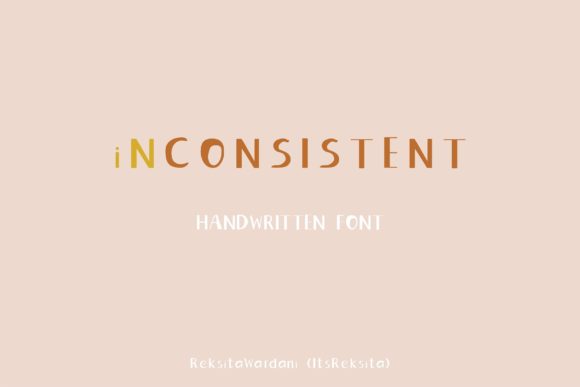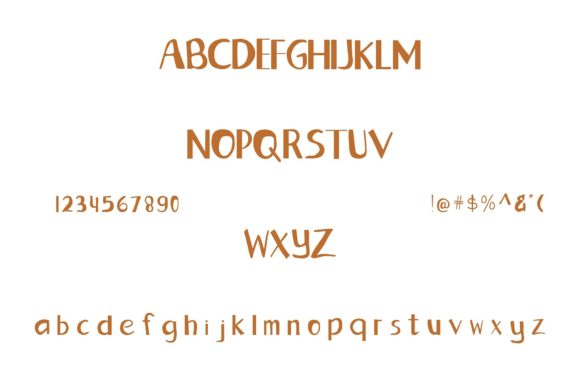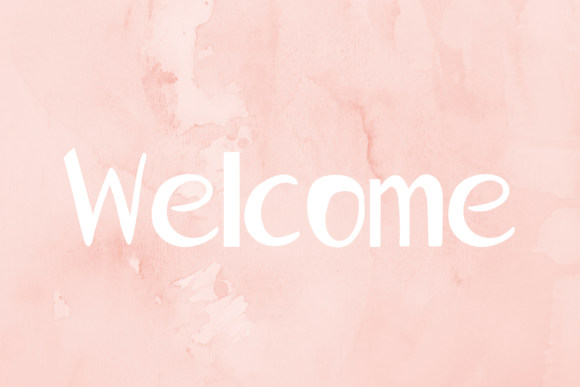
About Inconsistent Font
Inconsistent is a handwritten font that can be used for all chalkboard quotes or teaching material! Its authentic look and feel will add a personal and realistic feel to your designs.